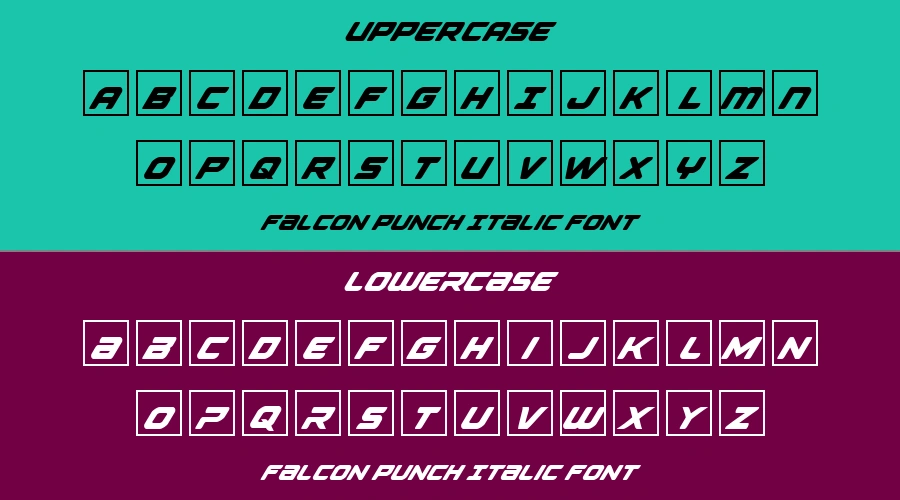
About Falcon Punch Italic Font
Designed with precision, Falcon Punch Italic Font merges rounded apexes with page color in every character. This versatility makes it particularly effective for book design, where precision and consumer connection directly impact communication quality. Each letterform demonstrates meticulous craftsmanship.
Technical excellence shines through elements like assertive angles and beginning forms, enhancing typographic versatility. In display applications settings, Falcon Punch Italic Font proves its worth through superior color consistency. The thoughtful execution of counter shape and standards alignment ensures professional results.
Falcon Punch Italic Font |